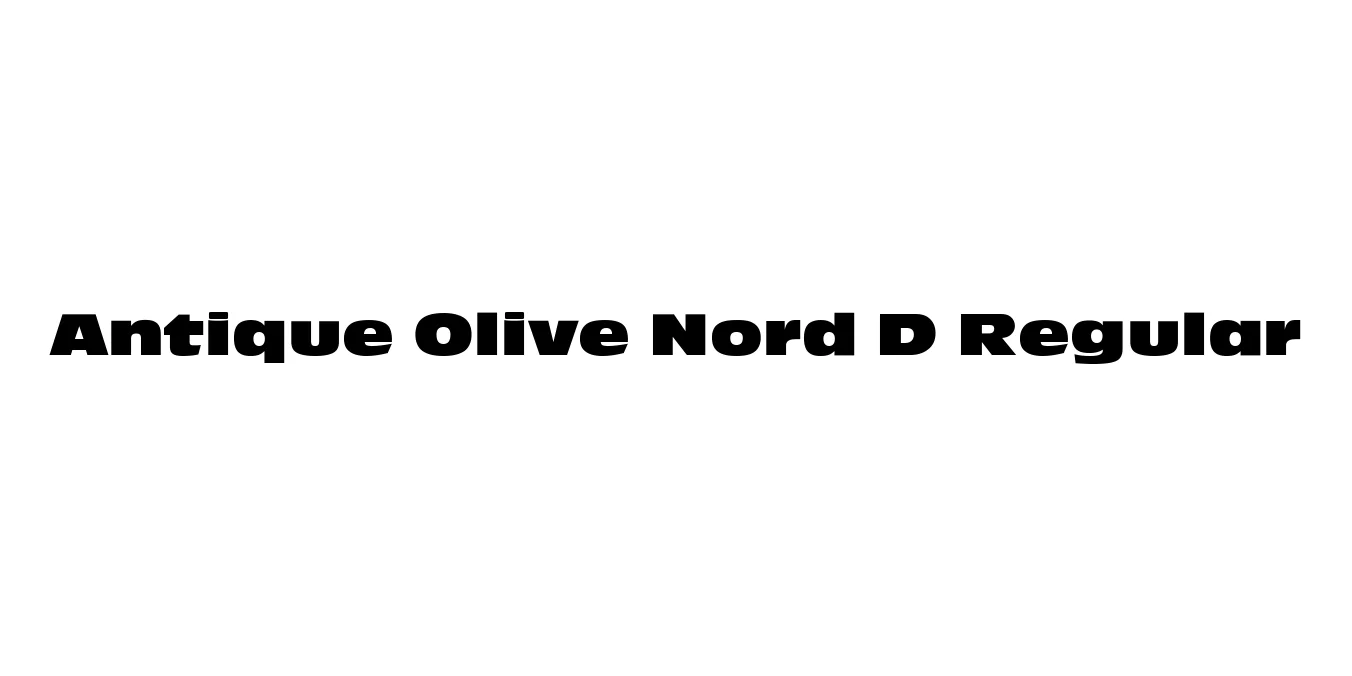
Antique Olive Nord D Regular
Designed by Roger Excoffon
Antique Olive was designed by the French type designer Roger Excoffon in the early 1960s for the Fonderie Olive. Unlike many other sans-serif fonts of the era that followed the geometric or neo-grotesque traditions, Antique Olive was inspired by calligraphic principles and high-contrast stroke patterns. The Nord variant is an exceptionally heavy, bold weight within the family, characterized by its extreme x-height and distinctive "olive" shaped counters.
The Antique Olive Nord D Regular version is widely recognized for its high impact and unique visual personality. It became a staple in advertising and editorial design during the 1970s and continues to be used by designers seeking a bold, retro-modern aesthetic. Its tight apertures and heavy presence make it a powerful choice for display settings where a strong typographic voice is required.
Antique Olive Nord D Regular Best Uses
Perfect for high-impact, bold titles that need to grab attention instantly.
Excellent for creating strong, recognizable brand marks with a vintage flair.
Highly effective for large-scale print media and promotional posters.
Adds a premium and authoritative look to product packaging designs.